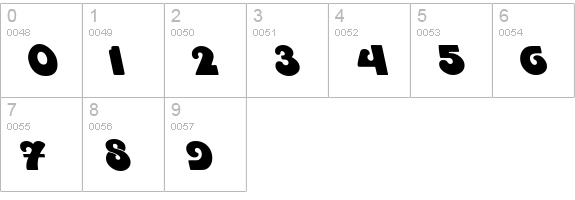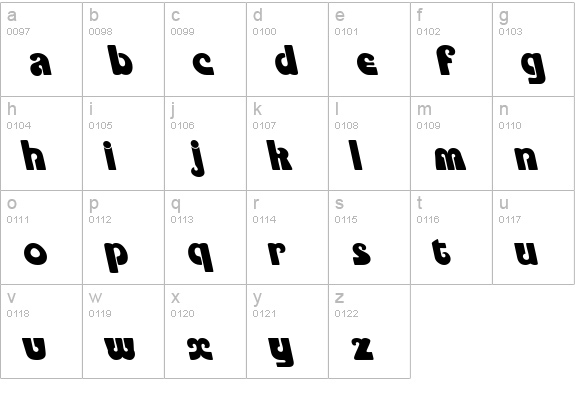
PookyDisplayBS Font Details
PookyDisplayBS font is a whimsical and playful typeface that exudes charm and personality. With its quirky letterforms and unique design, this font is perfect for adding a touch of fun to your projects. Whether you're working on a children's book, party invitation, or any creative design, PookyDisplayBS will bring a burst of joy to your work. Best of all, PookyDisplayBS is available for free download at FontsMarket.com. Simply visit the website and grab this delightful font to add a touch of creativity to your designs. Embrace the fun and versatility of PookyDisplayBS font today and let your imagination run wild!